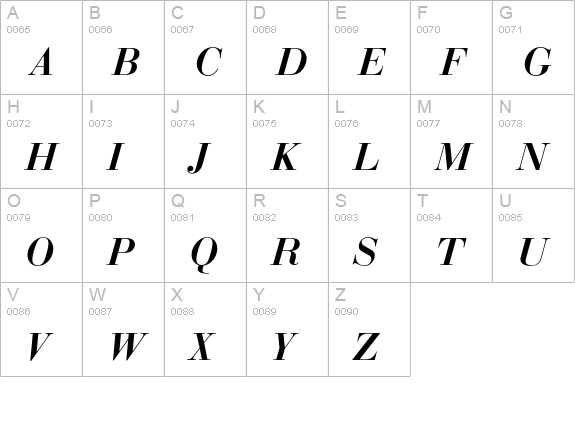
Bauer Bodoni D Demi Bold Italic Font Details
Bauer Bodoni D Demi Bold Italic is a sub-bold, structured, italic variant in the Bauer typeface family \xE2\x80\x94 well suited to sub-headlines and emphasised passages.
Bauer Bodoni D Demi Bold Italic is a stunning and elegant typeface that exudes sophistication and style. With its unique blend of boldness and delicacy, this font is perfect for adding a touch of luxury to any project. The italicized form adds a dynamic and expressive quality, making it ideal for adding emphasis or creating a sense of drama. This font is not only visually striking but also highly versatile, making it suitable for a wide range of design applications, from editorial layouts to branding and packaging. Its classic yet modern aesthetic ensures that it will stand the test of time and remain a timeless choice for designers and creatives alike. Best of all, Bauer Bodoni D Demi Bold Italic is freely available to download at FontsMarket.com, allowing you to access this premium typeface at no cost. Don't miss out on the opportunity to elevate your designs with this exquisite font.